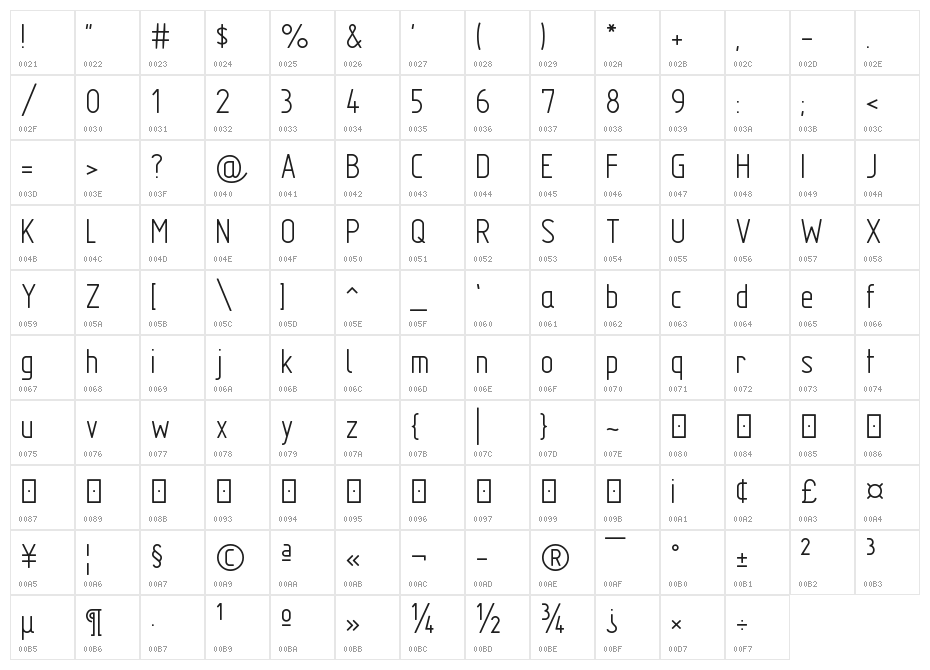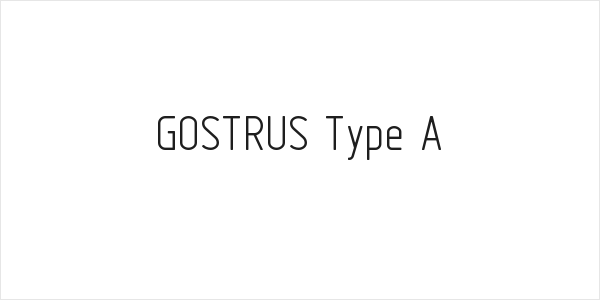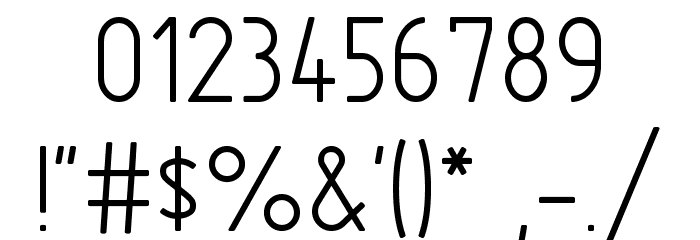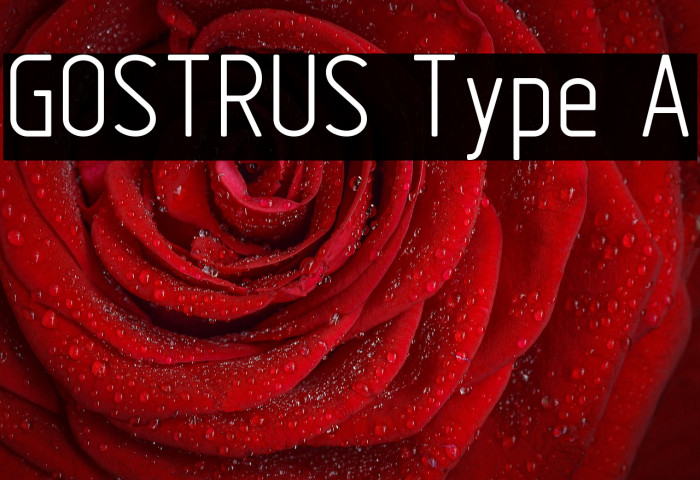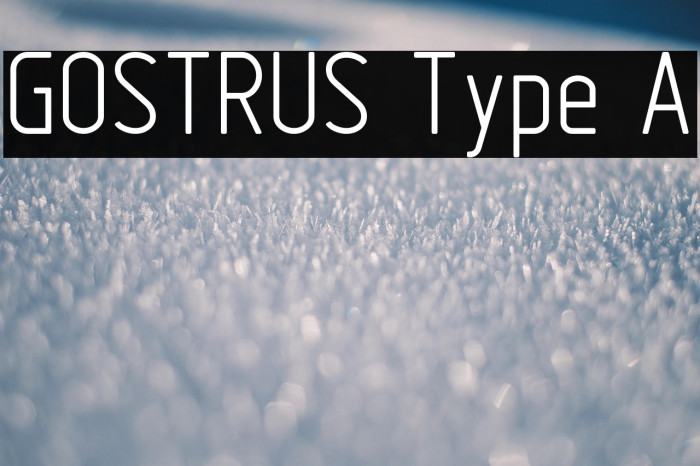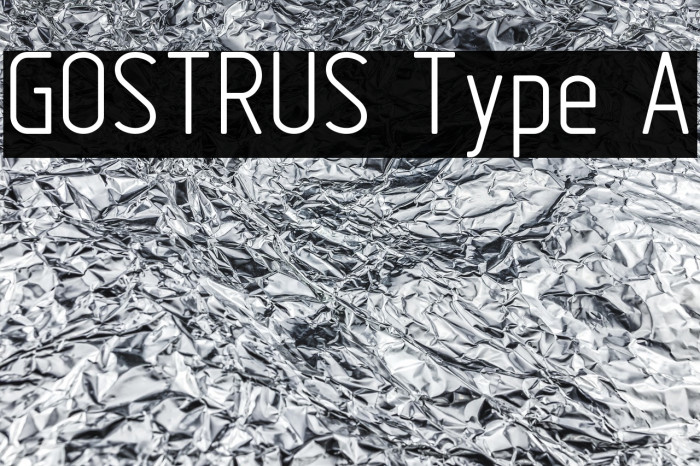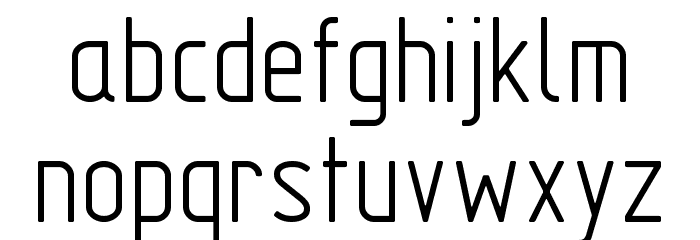
GOSTRUS Type A Font
GOSTRUS Type A Description
This font features a clean and geometric design with a modern aesthetic. The characters are constructed with uniform line thickness, giving it a sleek and streamlined appearance. The uppercase letters are tall and narrow, while the lowercase letters maintain a consistent height, creating a harmonious balance. The numerals are clear and easy to read, making them suitable for various applications. The special characters are designed to complement the overall style, ensuring versatility in usage. This font is ideal for projects that require a contemporary and professional look.